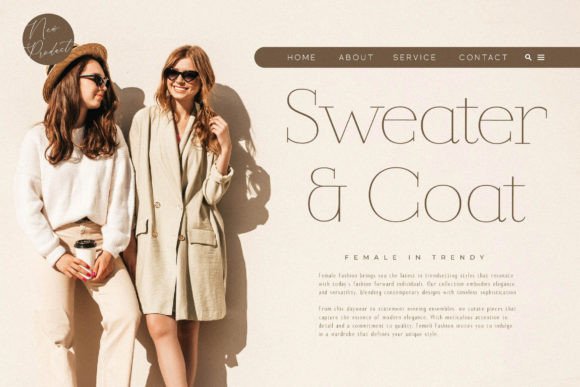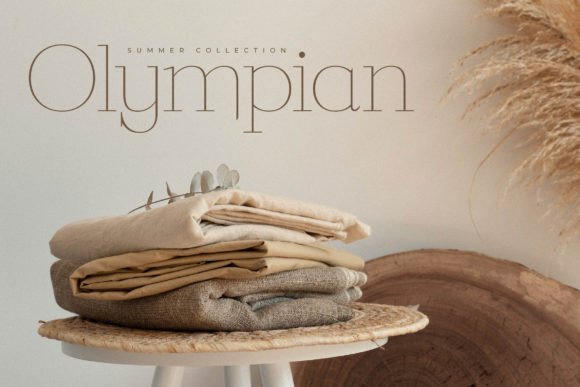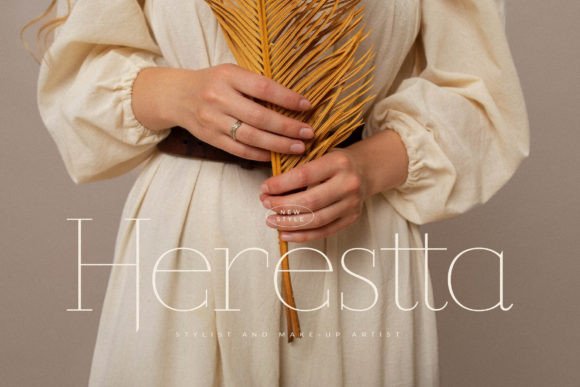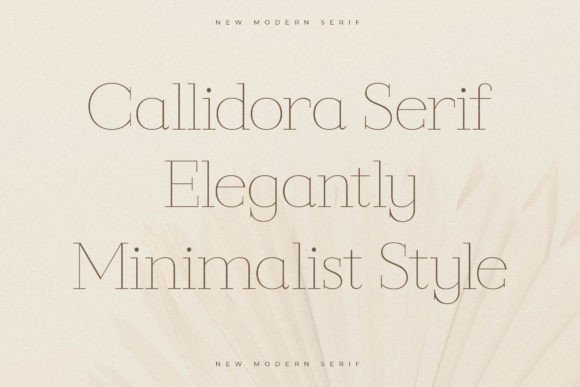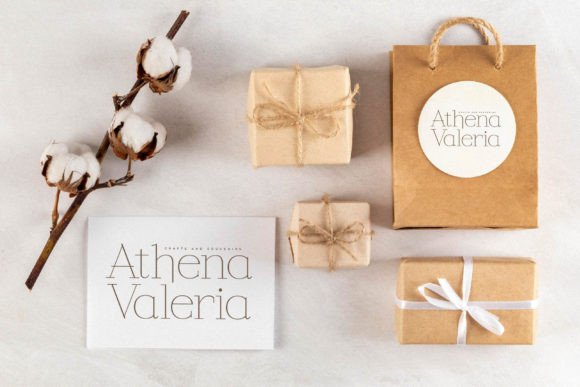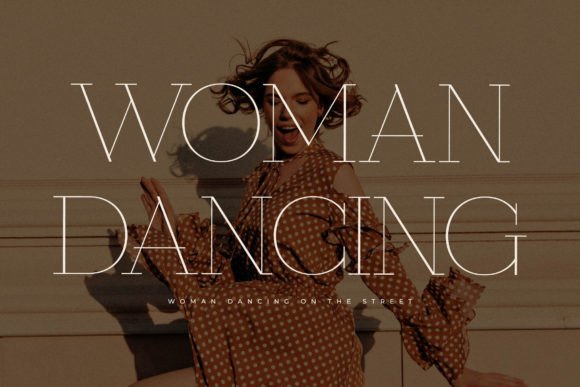
Introducing Callidora Font: Elevate Your Designs with Elegance and Sophistication
In the world of typography, a font can make or break a design. For designers and crafters seeking to infuse their projects with a touch of elegance and luxury, the Callidora Font is an exceptional choice. Proudly presented as a modern and classic serif typeface, Callidora boasts a unique style and a contemporary look that sets it apart from other fonts in its category.
What Makes Callidora Font Stand Out?
Callidora Font is not just another serif typeface; it’s a meticulously crafted design tool that offers a plethora of possibilities for creative expression. Here are some features that make Callidora a standout addition to your typography arsenal:
- Modern and Classic Appeal: Callidora strikes the perfect balance between modernity and classic sophistication. Its serif design lends a timeless quality to your projects, while its contemporary twist ensures they remain fresh and relevant.
- Unique Style: The font’s unique style is evident in its carefully considered letterforms, which exude a sense of luxury and refinement. This makes Callidora an excellent choice for projects where making a statement is key.
- Versatility: Whether you’re working on an elegant logo, a book or movie title, a fashion brand’s identity, a magazine, clothing designs, lettering, or quotes, Callidora Font adapts seamlessly to various design needs.
- PUA Encoding: Understanding the needs of designers, Callidora Font comes PUA (Private Use Area) encoded. This feature allows for easy access to all the glyphs and ligatures, making it straightforward to incorporate the font’s extensive range of typographic elements into your work.
Applications of Callidora Font
The versatility of Callidora Font makes it suitable for a wide range of applications. Here are some of the areas where this font truly shines:
1. Elegant Logos
For businesses aiming to establish a sophisticated brand identity, Callidora Font offers the perfect solution. Its elegant and luxurious feel can elevate a logo from simple to sublime, making it memorable and impactful.
2. Book and Movie Titles
In the realm of publishing and cinema, titles are more than just names; they’re an introduction to the story. Callidora Font, with its classic yet modern appeal, can add a layer of depth and intrigue to book and movie titles, capturing the audience’s attention and setting the tone for the narrative.
3. Fashion Brands
Fashion is all about aesthetics and expressing individuality. Callidora Font, with its luxurious feel, can be a perfect match for fashion brands looking to communicate elegance, sophistication, and style through their typography.
4. Magazines and Editorial Design
For magazines and editorial projects, the choice of font can significantly impact readability and visual appeal. Callidora Font, with its clear serif design, enhances the reading experience while adding a touch of class to the publication.
5. Clothing and Apparel
Typography on clothing and apparel can make a powerful statement. Callidora Font, with its unique style and modern look, can add an element of sophistication to t-shirts, hoodies, and other apparel, making them stand out.
Callidora Font is a remarkable addition to the world of typography, offering designers and crafters a tool that combines elegance, luxury, and versatility. Its unique style, modern appeal, and PUA encoding make it an invaluable resource for a wide range of design projects. Whether you’re aiming to create an impactful logo, a stylish fashion brand identity, or an elegant book title, Callidora Font is poised to elevate your designs to new heights of sophistication and aesthetic appeal.